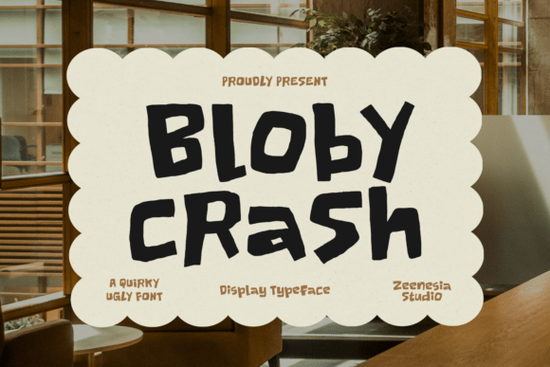
Looking for a font that stands out and adds a unique flair to your designs? Bloby Crush Font is an excellent choice for anyone who wants to bring a sense of fun and creativity into their work. This quirky, hand-drawn typeface has a bold personality that makes it perfect for a wide range of projects, from posters to packaging and social media graphics.
The Bloby Crush Font is designed with imperfection in mind. Its uneven curves and chunky shapes give it a raw, expressive look that feels spontaneous and artistic. Whether you're working on a kids' branding project or a creative hobby, this font brings a chaotic charm that's hard to ignore. It’s not just a font it’s a statement.
What Makes Bloby Crush Font Stand Out?
Unlike traditional fonts that aim for perfection, Bloby Crush embraces the beauty of irregularity. The design feels unapologetically unique, making it ideal for projects that need a little extra character. Its playful attitude sets it apart from other display fonts, giving your work a more dynamic and engaging feel.
If you’re looking for something that can add visual interest without being too overwhelming, this font is a great fit. It works well in both digital and print formats, making it versatile for different applications. Whether you're designing a logo, creating social media content, or working on a packaging concept, Bloby Crush Font can help you make a lasting impression.
Best Uses for Bloby Crush Font
This font shines in projects that benefit from a bold and unconventional style. For example, it’s perfect for creating eye-catching posters, especially for events or promotions that want to stand out. It also works well for kids’ branding, where a fun and lively look is essential.
For print-on-demand sellers, Bloby Crush Font can be a valuable addition to your design library. Its unique appearance helps products stand out in a crowded marketplace. It’s also great for album covers, where a strong visual identity is key. The font’s expressive nature ensures that your designs are anything but ordinary.
If you're a small business owner looking to create a memorable brand presence, consider using this font in your marketing materials. It can add a sense of creativity and individuality that resonates with your audience.
How to Use Bloby Crush Font Effectively
To get the most out of Bloby Crush Font, consider pairing it with simpler typefaces for balance. For example, use it as a headline while keeping body text in a more readable font. This approach ensures that your design remains legible while still making a strong visual impact.
Another tip is to experiment with color and spacing. The font’s bold shapes can look even more striking when used with vibrant colors or creative layout techniques. Don’t be afraid to play around with different combinations to find what works best for your project.
Finally, always test the font in different sizes and contexts. What looks great on a poster might not work as well on a social media post. Adjusting the font size and placement can help maintain its visual appeal across various platforms.
Whether you're a designer, crafter, or small business owner, Bloby Crush Font offers a fresh and exciting way to express your creativity. Its unique style and versatility make it a valuable tool for any design project that needs a little extra flair.
Before finalizing your design, take a moment to review how the font looks in different settings. Make sure it aligns with your overall vision and enhances the message you want to convey. With a little care and attention, Bloby Crush Font can help you create something truly memorable.